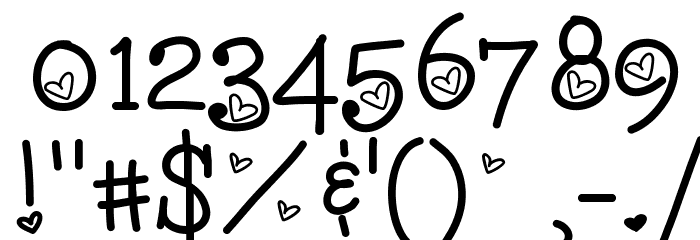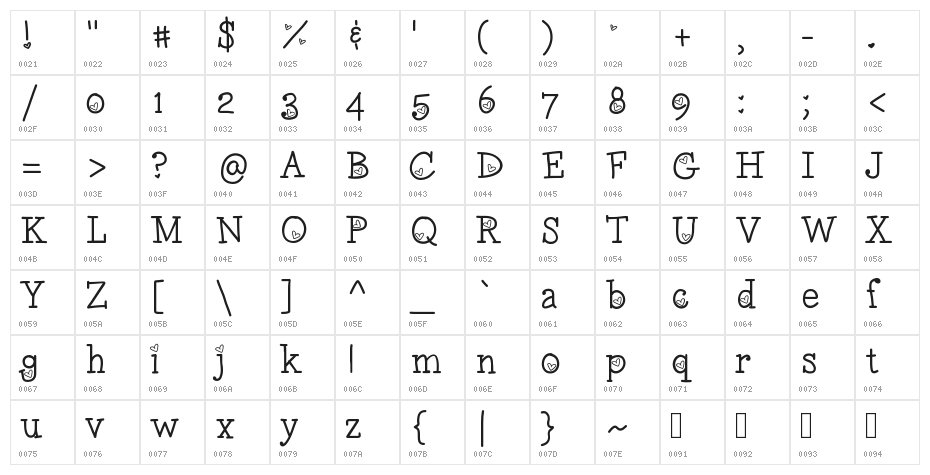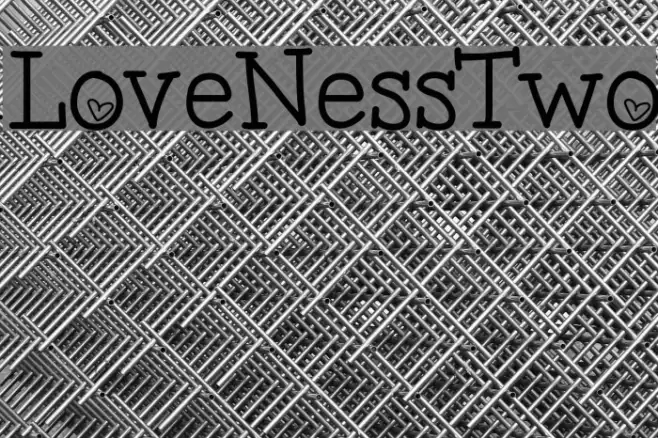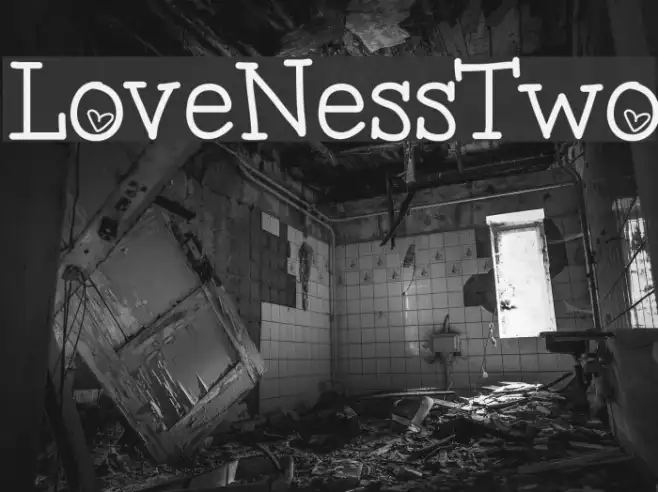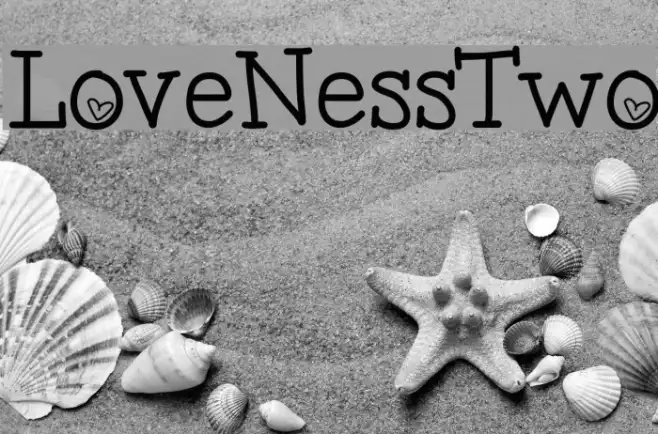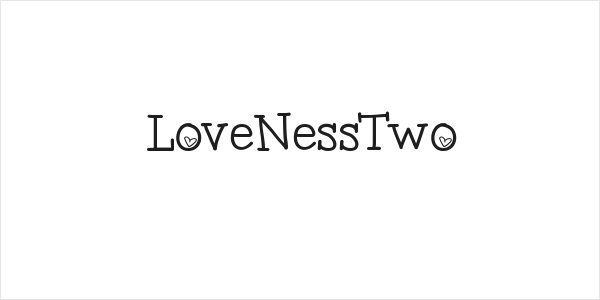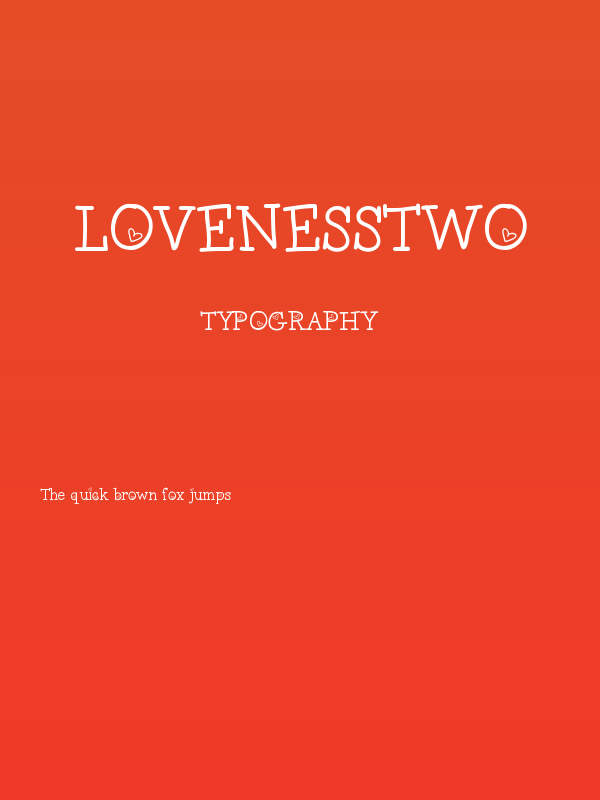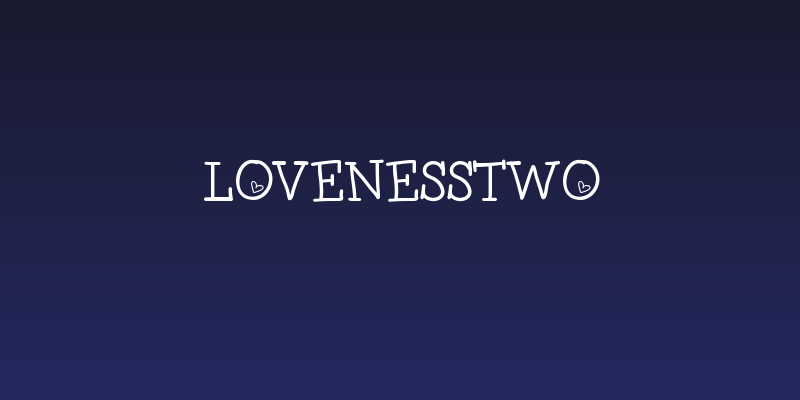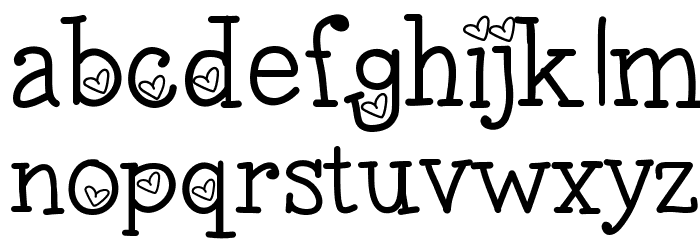
LoveNessTwo Font
LoveNessTwo Description
This playful and whimsical font features charming heart motifs embedded within the characters, adding a touch of romance and fun. The letters are bold and rounded, with a hand-drawn feel that exudes warmth and friendliness. The uppercase and lowercase letters maintain a consistent style, with the hearts cleverly integrated into the design. The numbers and special characters follow suit, ensuring a cohesive look across all elements. This font is perfect for projects that require a lighthearted and affectionate touch, making it ideal for invitations, greeting cards, and playful branding.
| Overall Style | Whimsical |
| Use Case | Headlines, Invitations, Greeting Cards |
| Proposed Projects | Ideal for wedding invitations, Valentine's Day cards, children's books, and playful branding. |